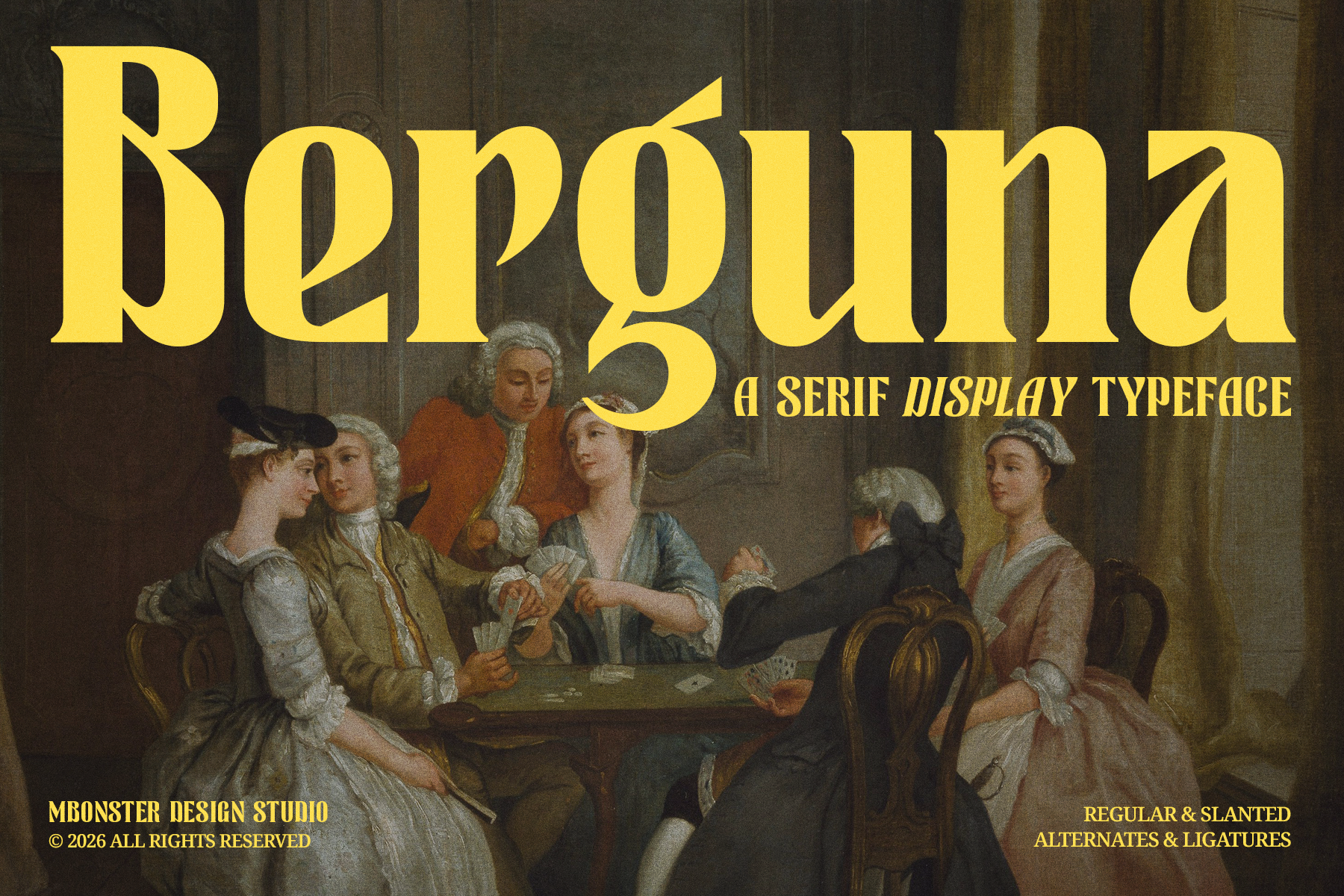
Berguna - A Serif Display Typeface
Berguna is a classic-inspired display serif typeface with a modern touch, featuring bold forms, strong contrast, and distinctive character. Berguna is perfect for headlines, posters, branding, logos, editorial design, packaging, quotes, and any project that calls for a warm, artistic, and timeless feel.